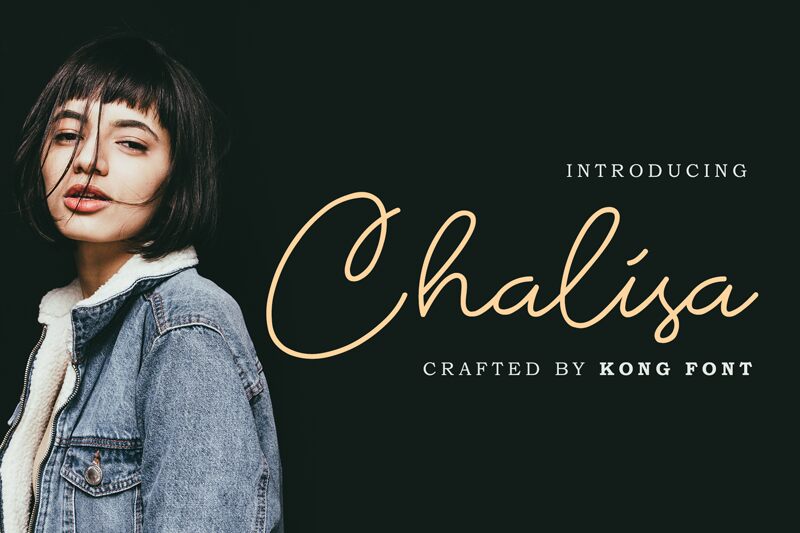
Chalisa font family by Kong Font encompasses 4 graceful handwritten font styles, masterfully executed with flowing penmanship. The free font family is exceptionally modern and stylish, with refined, elongated letter shapes and subtle nuances in each letter. Expressive and artistic, this stylish typeface is extremely versatile and captivating.
Chalisa will look outstanding in all sizes on magazine covers, book covers, science journals, and fashion. Branding projects, advertising campaigns, social media, and video content will also benefit greatly from this modern font.